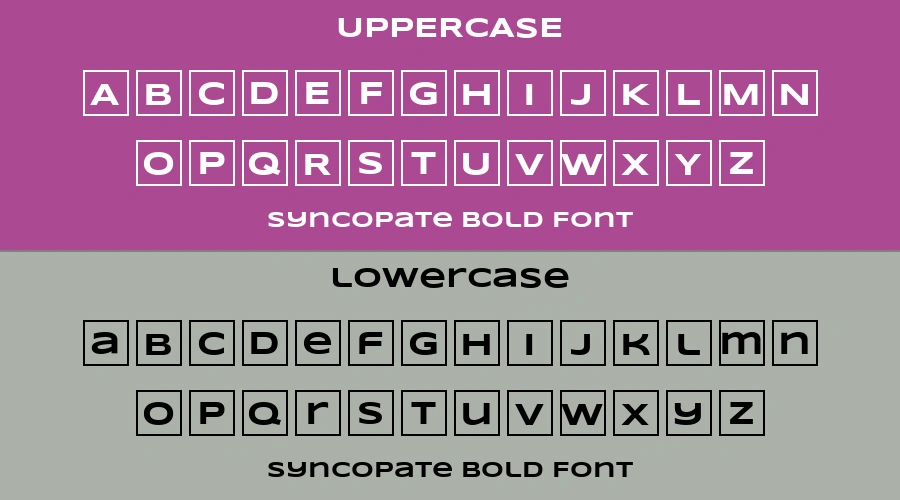
About Syncopate Bold Font
Designed with precision, Syncopate Bold Font merges architectural precision with flexibility in every character. This versatility makes it particularly effective for engineering drawings, where refinement and technical mastery directly impact communication quality. Each letterform demonstrates meticulous craftsmanship.
Technical excellence shines through elements like precise joints and dingbat elements, enhancing typographic versatility. In campaign headers settings, Syncopate Bold Font proves its worth through superior large format impact. The thoughtful execution of descender depth and technical innovation ensures professional results.